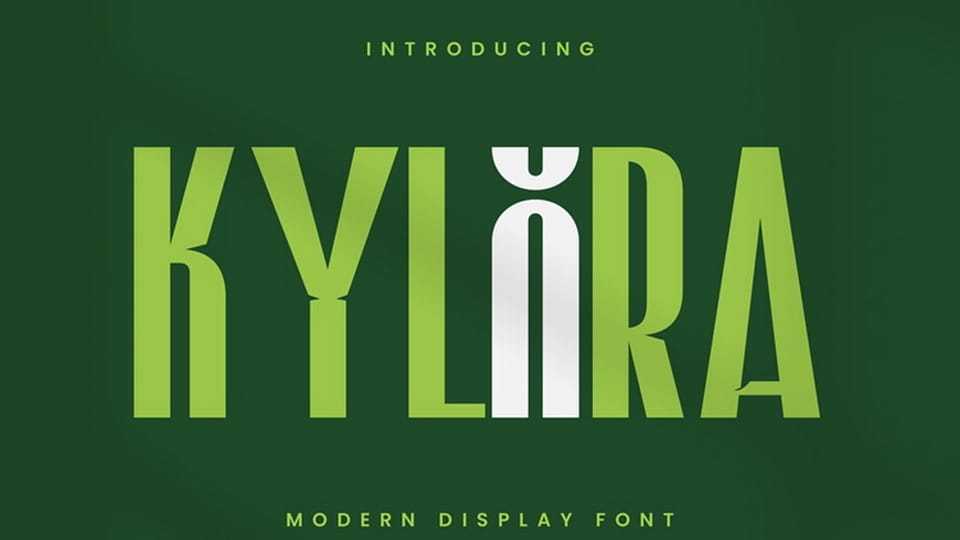
Download Kylora font, a bold modern display typeface crafted with tall proportions, refined geometric shapes, and a distinctive contemporary character.
Designer: Rvandtype Studio